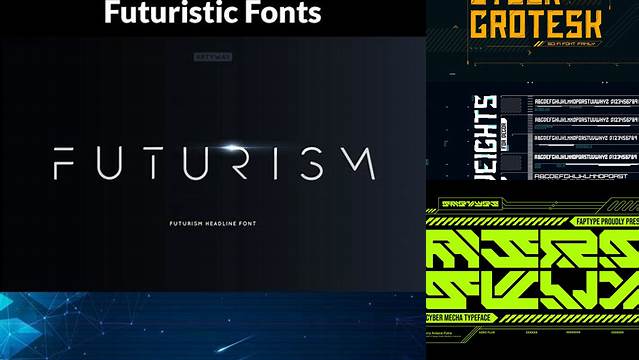
Free Cyber Grotesk Font: Download & Usage Guide
Hey guys! Are you on the hunt for a font that screams futuristic and modern? Look no further! In this comprehensive guide, we're diving deep into the world of Cyber Grotesk, a typeface that's been making waves in the design community. We'll explore what makes this font so special, where you can snag it for free, and how to use it to elevate your projects. So, buckle up and let's get started!
What is Cyber Grotesk?
Cyber Grotesk, at its core, is a typeface inspired by the sleek, bold lines often associated with cyberpunk aesthetics and futuristic technology. Its design typically features sharp angles, geometric shapes, and a generally clean, minimalist look. Think Blade Runner meets Tron in typographic form! This font family often includes various weights and styles, offering versatility for different design needs. Whether you're working on a website, a poster, a logo, or even a video game, Cyber Grotesk can add that extra punch of modernity and edge.
Imagine a font that embodies the spirit of technological advancement – that's Cyber Grotesk. It's not just about looking cool; it's about communicating a sense of innovation and forward-thinking. The sharp lines and geometric precision convey a feeling of technological sophistication. The clean, minimalist aesthetic ensures readability and clarity, making it suitable for both headlines and body text, depending on the specific style and weight chosen. When selecting a Cyber Grotesk typeface, consider the message you want to convey. A bolder weight might be ideal for headlines or emphasizing key information, while a lighter weight could be used for body text to maintain readability. Experimenting with different styles and weights within the font family can help you achieve a harmonious and visually appealing design. Think about how the font interacts with other elements of your design, such as images, colors, and spacing. A well-chosen Cyber Grotesk font can be a powerful tool for creating a strong visual identity for your brand or project.
Moreover, the appeal of Cyber Grotesk extends beyond its visual aesthetics. It represents a connection to a broader cultural fascination with the future and technological progress. The font evokes imagery of sprawling megacities, advanced robotics, and virtual realities. By incorporating Cyber Grotesk into your designs, you are tapping into this cultural narrative and inviting your audience to engage with your message on a deeper level. In the realm of branding, Cyber Grotesk can be particularly effective for companies seeking to position themselves as innovative and cutting-edge. Whether it's a tech startup, a gaming company, or a creative agency, this font can help convey a sense of dynamism and modernity. The key is to use it strategically, ensuring that it aligns with your brand's overall personality and values. Consider the context in which the font will be used. Will it be displayed on a website, in print materials, or in a video? The chosen medium can influence the optimal weight and style of Cyber Grotesk to ensure maximum impact. Ultimately, the versatility of Cyber Grotesk lies in its ability to be both stylish and functional. It's a font that can make a statement while remaining readable and accessible. By understanding its characteristics and exploring its various applications, you can harness the power of Cyber Grotesk to create compelling and visually stunning designs.
Key Characteristics of Cyber Grotesk Fonts:
- Geometric Forms: Expect sharp angles and precise shapes.
- Minimalist Design: Clean lines and uncluttered letterforms are key.
- Futuristic Vibe: The font often evokes a sense of technology and the future.
- Versatility: Many Cyber Grotesk fonts come in multiple weights and styles.
When evaluating free Cyber Grotesk fonts, consider the quality of the design and the completeness of the character set. Does the font include all the letters, numbers, and punctuation marks you need? Are the letterforms well-balanced and visually appealing? It's also worth checking for kerning issues, which can affect the overall readability of the text. Kerning refers to the spacing between individual letters, and poor kerning can make a font look unprofessional. Many of the free font foundries such as Lost Type Co-op, The League of Movable Type, and Open Foundry often provide designers with a range of high-quality fonts that fit the Cyber Grotesk mold. These sites are a goldmine for designers looking to add a touch of futuristic flair to their projects without spending a fortune. Each of these platforms is dedicated to providing a curated selection of free fonts that meet high standards of design and usability. Lost Type Co-op, for example, operates on a "pay-what-you-want" model (including free), making it a great resource for supporting independent type designers. The League of Movable Type is a classic in the free font community, offering a selection of well-crafted, open-source fonts that are perfect for a variety of projects. Open Foundry focuses on showcasing open-source typefaces, providing a platform for designers to share their work and for users to discover new and exciting fonts. Remember, even though these fonts are free, the creators have put in significant effort to design them. Consider supporting these designers by crediting them in your work or making a donation if you're able.
Resources for Free Cyber Grotesk Fonts:
- Google Fonts: A vast library of open-source fonts.
- Fontshare: Curated collection of high-quality, free fonts for commercial use.
- Dafont & FontSpace: Large platforms with user-submitted fonts (check licenses carefully!).
- Lost Type Co-op: A "pay-what-you-want" foundry with unique typefaces.
- The League of Movable Type: A classic resource for open-source fonts.
- Open Foundry: A platform dedicated to showcasing open-source typefaces.
How to Use Cyber Grotesk in Your Designs
Okay, you've found the perfect Cyber Grotesk font – now what? The key is to use it strategically to maximize its impact. This font style isn't a one-size-fits-all solution, so let's explore some best practices for incorporating it into your projects.
First and foremost, consider the overall tone and message of your design. Cyber Grotesk works best when you're aiming for a modern, technological, or futuristic vibe. It's a fantastic choice for websites, apps, posters, and branding materials related to tech, gaming, science fiction, or any industry that wants to project a cutting-edge image. However, it might not be the best fit for more traditional or classic designs. Next, think about hierarchy and readability. As mentioned earlier, bolder weights of Cyber Grotesk are excellent for headlines and titles, as they grab attention and make a strong statement. Lighter weights can be used for body text, but it's crucial to ensure that the text remains legible. Avoid using extremely thin or condensed styles for large blocks of text, as they can become difficult to read. Experiment with different font sizes and line heights to find the optimal balance between style and readability. Pairing Cyber Grotesk with other fonts can also create a visually interesting and dynamic design. A common approach is to use Cyber Grotesk for headings and a simpler, more neutral sans-serif font for body text. This helps to create contrast and improve readability. Some popular pairings include Cyber Grotesk with fonts like Open Sans, Lato, or Montserrat. When selecting a complementary font, consider the x-height (the height of the lowercase letters) and the overall style. Aim for a font that has a similar x-height to Cyber Grotesk to ensure visual consistency. Also, think about the contrast you want to create. Do you want a subtle contrast that blends seamlessly, or a more dramatic contrast that makes each font stand out?
Color plays a significant role in how Cyber Grotesk is perceived. The font often looks stunning in high-contrast color schemes, such as white text on a dark background or vice versa. Bright, neon colors can also enhance the futuristic feel of the font. However, be mindful of color accessibility and ensure that your color choices provide sufficient contrast for users with visual impairments. Spacing is another crucial element to consider. Cyber Grotesk fonts often benefit from generous letter spacing and line height. Adding extra space around the letters and between the lines can improve readability and give the design a more open and airy feel. This is particularly important when using bolder weights or condensed styles. Finally, don't be afraid to experiment with different effects and techniques to enhance the look of Cyber Grotesk. Adding subtle shadows, glows, or gradients can create a more three-dimensional and visually appealing effect. You can also try using the font in combination with geometric shapes or patterns to reinforce the futuristic theme. Remember that less is often more. While it's tempting to go overboard with effects and embellishments, the key is to use them sparingly and purposefully. A well-designed Cyber Grotesk font can speak for itself, so focus on clean typography and a strong overall composition.
Tips for Using Cyber Grotesk:
- Consider the Tone: Best for modern, techy, or futuristic designs.
- Hierarchy & Readability: Use bolder weights for headlines, lighter for body text.
- Font Pairing: Combine with simpler sans-serif fonts for contrast.
- Color Palette: High-contrast colors and neon shades work well.
- Spacing: Generous letter spacing and line height improve readability.
- Experiment with Effects: Subtle shadows, glows, or gradients can enhance the look.
Examples of Cyber Grotesk in Action
To truly appreciate the power of Cyber Grotesk, let's take a look at some examples of how it can be used effectively in design. You'll notice that this font family is incredibly versatile, lending itself to a wide range of applications.
One common application is in website design. Cyber Grotesk can be used for website headers, navigation menus, and even body text (in lighter weights) to create a sleek and modern user experience. Tech companies, startups, and creative agencies often use this font to convey a sense of innovation and sophistication. The sharp lines and geometric forms of Cyber Grotesk can help to create a visually engaging website that reflects the brand's forward-thinking approach. In the gaming industry, Cyber Grotesk is a natural fit. Its futuristic aesthetic aligns perfectly with the themes and visuals found in many video games. You'll often see Cyber Grotesk used in game titles, in-game text, and promotional materials. The font's boldness and clarity make it ideal for conveying information quickly and effectively, which is essential in a fast-paced gaming environment. Cyber Grotesk also shines in poster design. Whether you're creating a poster for a tech conference, a music festival, or a movie, this font can help you grab attention and communicate your message with impact. The font's strong visual presence makes it an excellent choice for headlines and key information, while its versatility allows it to be used for smaller text elements as well. When designing a poster with Cyber Grotesk, consider using bold colors, striking imagery, and dynamic layouts to create a visually stunning design.
Logos are another area where Cyber Grotesk can make a significant impact. A well-designed logo using Cyber Grotesk can help a brand project a modern and technological image. The font's geometric forms and clean lines make it ideal for creating logos that are both memorable and versatile. When designing a logo with Cyber Grotesk, consider the brand's personality and values. Choose a weight and style that reflects the brand's identity, and experiment with different letter combinations and arrangements to create a unique and recognizable mark. Beyond these specific applications, Cyber Grotesk can also be used in a variety of other design projects, such as presentations, brochures, social media graphics, and even video editing. Its versatility and visual appeal make it a valuable tool for any designer looking to create a modern and impactful design. The key to using Cyber Grotesk effectively is to understand its strengths and limitations and to use it strategically in combination with other design elements. By carefully considering the tone, hierarchy, color palette, and spacing, you can harness the power of Cyber Grotesk to create stunning designs that capture attention and communicate your message with clarity and style. Always remember to maintain consistency in your design choices and to ensure that the font aligns with the overall aesthetic and goals of your project.
Real-World Applications:
- Website Design: Headers, navigation menus, and body text.
- Gaming Industry: Game titles, in-game text, and promotional materials.
- Poster Design: Headlines and key information.
- Logo Design: Modern and technological brand identities.
So there you have it! Cyber Grotesk is a fantastic font choice for anyone looking to add a touch of futuristic flair to their designs. With its sharp lines, geometric shapes, and modern aesthetic, it's perfect for a wide range of applications, from websites to posters to logos. And the best part? You can find plenty of free options online, just remember to double-check those licenses! We hope this guide has been helpful in your quest for the perfect Cyber Grotesk font. Now go forth and create some awesome designs!